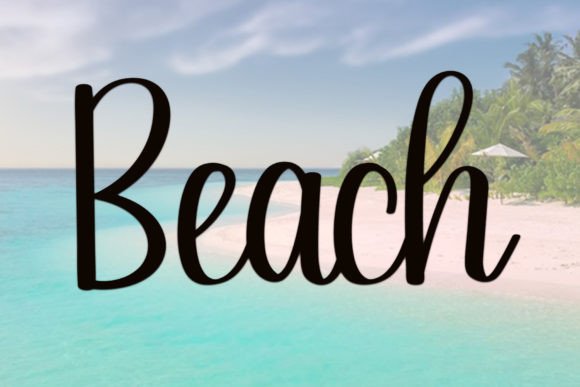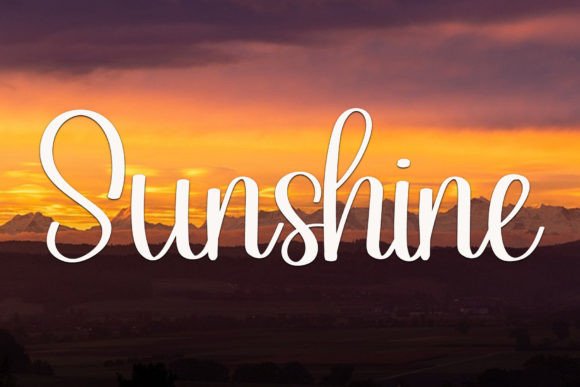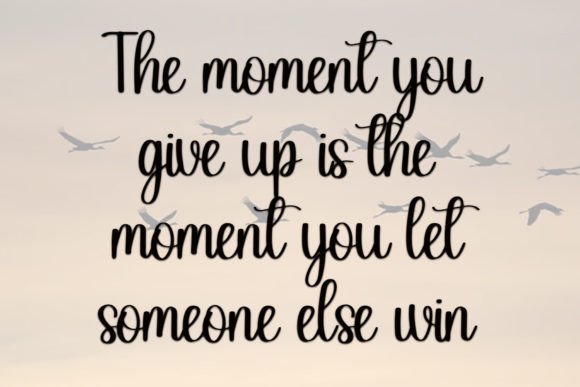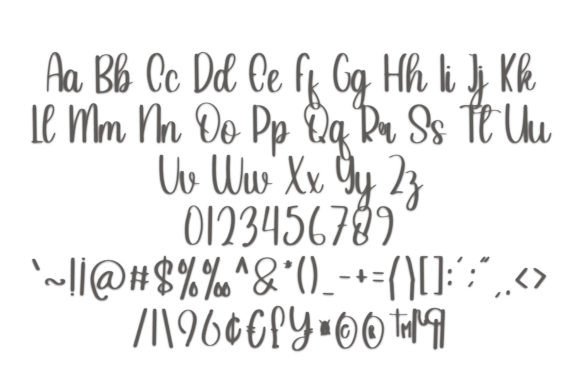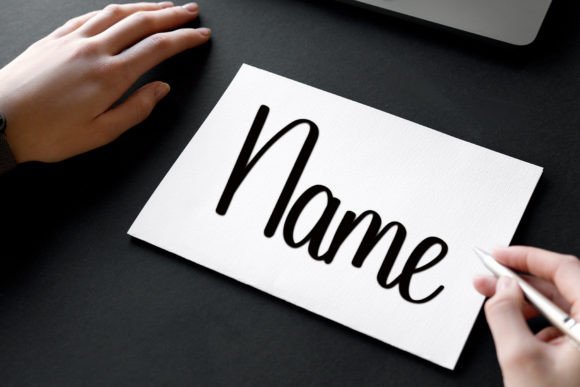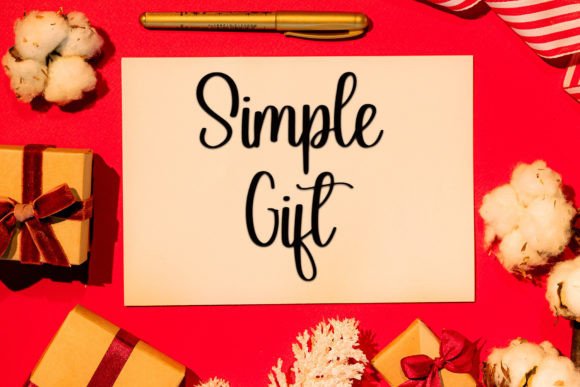
Introducing Blind Font: Elevate Your Designs with Elegance and Timelessness
Are you on the hunt for a font that exudes elegance, sophistication, and a touch of timelessness? Look no further than Blind Font, a beautiful handwritten typeface that is sure to capture your heart. With its incredibly distinct style, Blind Font is the perfect addition to any design project, whether you’re a seasoned designer or a crafty DIY enthusiast.
The Beauty of Blind Font
Blind Font is a neat and beautiful handwritten font that boasts an elegant touch, making it an ideal choice for a wide range of projects. From wedding invitations and branding materials to social media graphics and blog posts, Blind Font’s versatility knows no bounds. Its unique and timeless style will instantly elevate your designs, setting them apart from the crowd.
What Makes Blind Font So Special?
So, what sets Blind Font apart from other fonts out there? Here are just a few reasons why designers and crafters are falling in love with this stunning typeface:
- Elegant and Refined: Blind Font’s elegant touch gives it a sophisticated and refined feel, perfect for designs that require a level of luxury and poise.
- Timeless Style: Unlike trendy fonts that quickly go out of style, Blind Font’s classic look ensures it will remain relevant for years to come.
- Incredibly Distinct: With its unique character and flair, Blind Font is sure to make your designs stand out in a crowded digital landscape.
- Versatile: Whether you’re creating print materials, digital graphics, or web content, Blind Font adapts seamlessly to any design environment.
How to Use Blind Font in Your Designs
Ready to fall in love with Blind Font and incorporate it into your designs? Here are some ideas to get you started:
- Wedding Invitations: Add a touch of romance and sophistication to your wedding invitations, save-the-dates, and other stationery with Blind Font.
- Branding and Packaging: Use Blind Font to create eye-catching logos, labels, and packaging that reflects your brand’s personality and style.
- Social Media Graphics: Elevate your social media presence with Blind Font, using it to create engaging graphics, quotes, and promotional materials.
- Blog Posts and Articles: Add a touch of elegance to your written content with Blind Font, making it perfect for blog posts, articles, and other written materials.
Tips for Getting the Most Out of Blind Font
To ensure you get the most out of Blind Font, here are some expert tips to keep in mind:
- Experiment with Colors: Blind Font looks stunning in a range of colors, so don’t be afraid to experiment and find the perfect hue to match your brand or design.
- Mix and Match: Combine Blind Font with other fonts to create a unique and visually appealing typography style.
- Pay Attention to Spacing: Make sure to adjust the spacing and kerning to ensure Blind Font looks its best in your design.
In conclusion, Blind Font is a beautiful and elegant handwritten font that is sure to capture your heart. With its incredibly distinct and timeless style, it’s the perfect addition to any design project. Whether you’re a designer, crafter, or DIY enthusiast, Blind Font is a must-have in your typography arsenal. So why wait? Fall in love with Blind Font today and start creating spectacular designs that will leave a lasting impression!